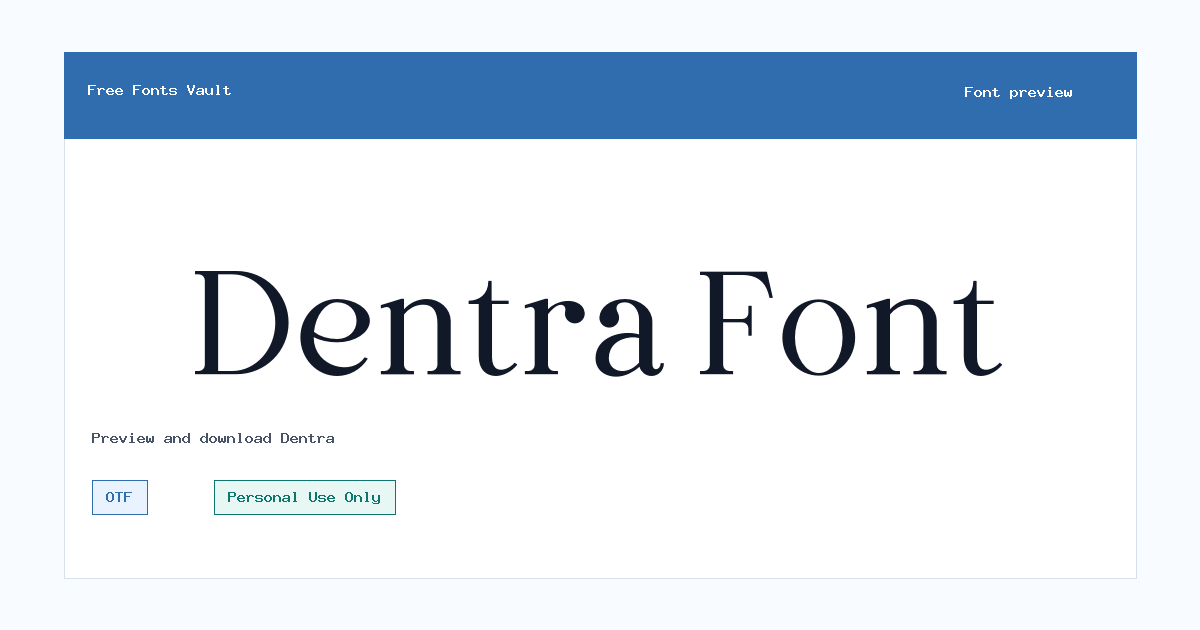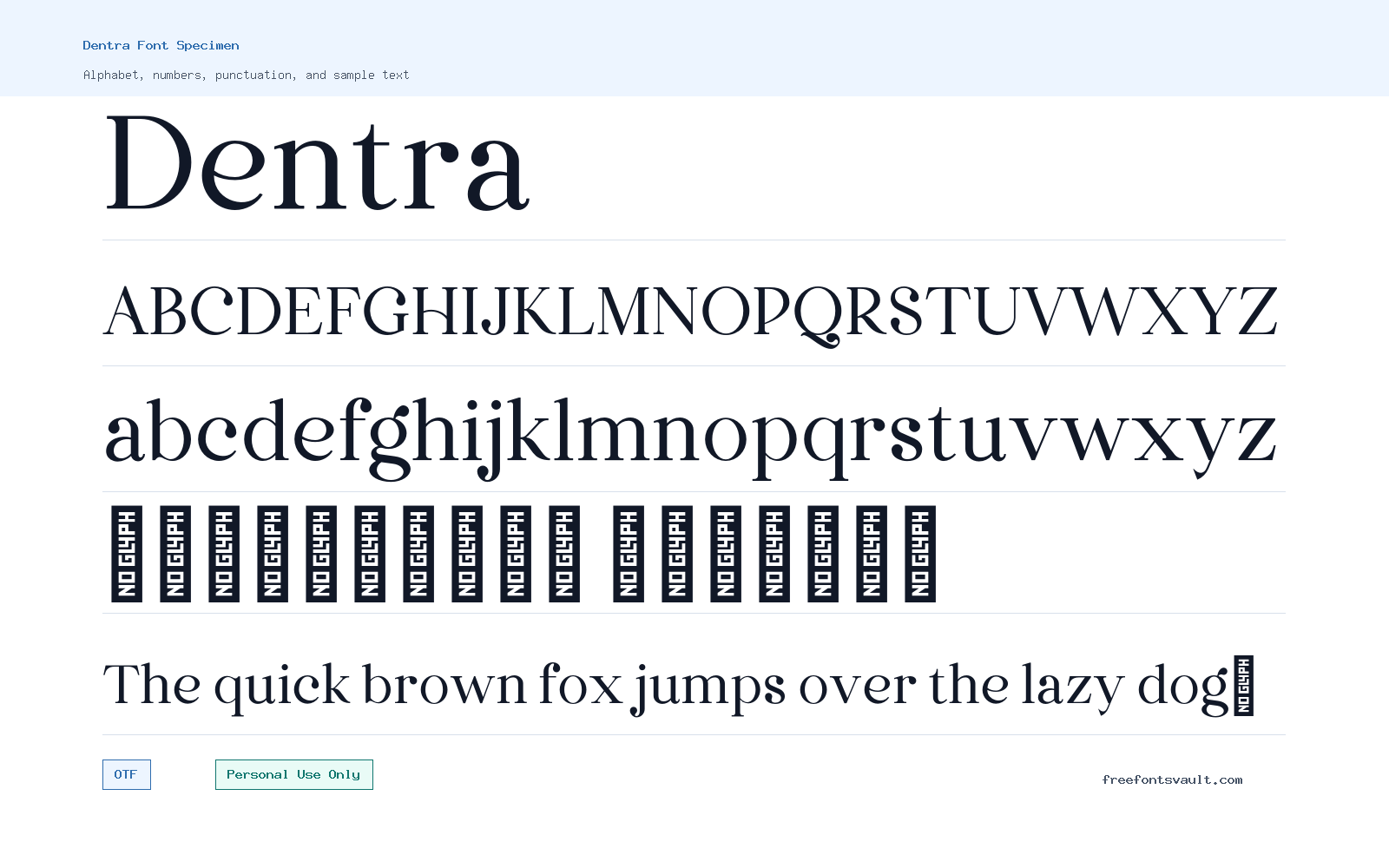
Dentra
Dentra font.
Dentra is a regular-weight OTF serif font intended for personal-use projects. It is a good font to preview when you need a refined serif look for short text, titles, or decorative layout work.
About Dentra Font
Dentra works best as a display-focused serif rather than a long-reading body font. The downloadable style is a regular 400 weight, so it gives you one clean starting point for testing headings, names, short quotes, invitations, social graphics, and personal design drafts. Because only one regular style is listed, it is best to treat Dentra as a font for controlled layouts where you can adjust size, spacing, and contrast by hand. Try it first in the preview box with the exact words you plan to use, especially if your design depends on a name, brand-style title, or a short phrase.
For practical use, keep Dentra in places where a serif personality can be seen clearly. It may suit poster titles, mood boards, personal stationery, scrapbook designs, quote cards, simple book-cover mockups, or elegant headings on non-commercial projects. Avoid relying on it for dense paragraphs until you test readability at smaller sizes. If the letter shapes feel too detailed or tight in body copy, use Dentra for the headline and pair it with a simple sans serif or a quiet text serif for supporting lines. A neutral companion font can help Dentra stand out without making the whole design feel crowded.
- Serif styling suited to short text, titles, personal graphics, and decorative layouts
- Personal invitations, quote cards, stationery, mood boards, and social graphics
- Headlines, names, short titles, cover mockups, and other display-size text
What is Dentra best used for?
Dentra is best tested for short display text such as headings, names, invitations, quote graphics, cover concepts, and personal design layouts.
How should I pair Dentra with another font?
Use Dentra for the main title and pair it with a clean sans serif or simple readable text font for supporting copy.